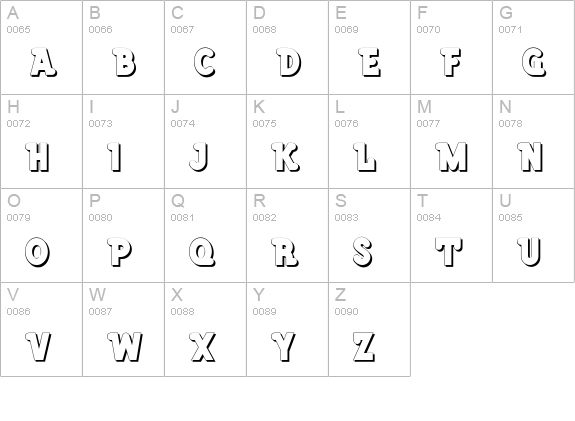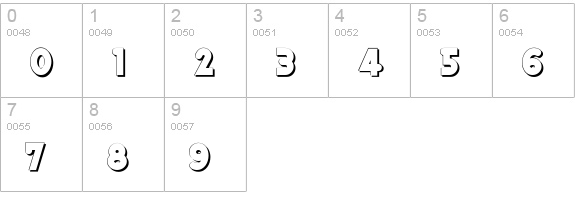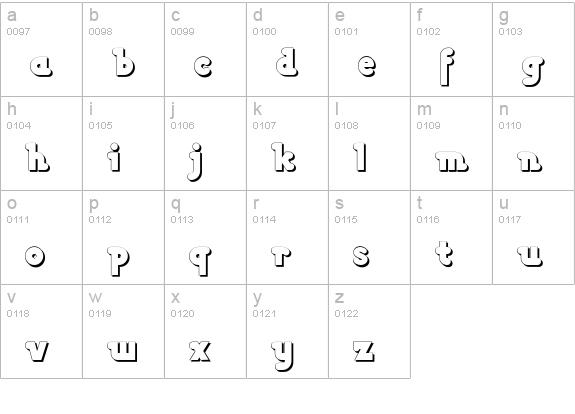
Lackawanna Weed NF Font Details
The Lackawanna Weed NF font embodies a unique and quirky style, perfect for adding a touch of whimsy to your designs. With its playful yet elegant appearance, this font is sure to make a statement and stand out from the crowd. The free-flowing lines and organic shapes give it a natural and organic feel, making it a versatile choice for a wide range of projects. Best of all, Lackawanna Weed NF is freely available to download at FontsMarket.com, allowing you to easily access this charming font and incorporate it into your creative endeavors. Whether you're designing posters, invitations, or branding materials, Lackawanna Weed NF is sure to add a delightful touch to your work. Embrace the playful spirit of this font and elevate your designs with its unique charm and character.